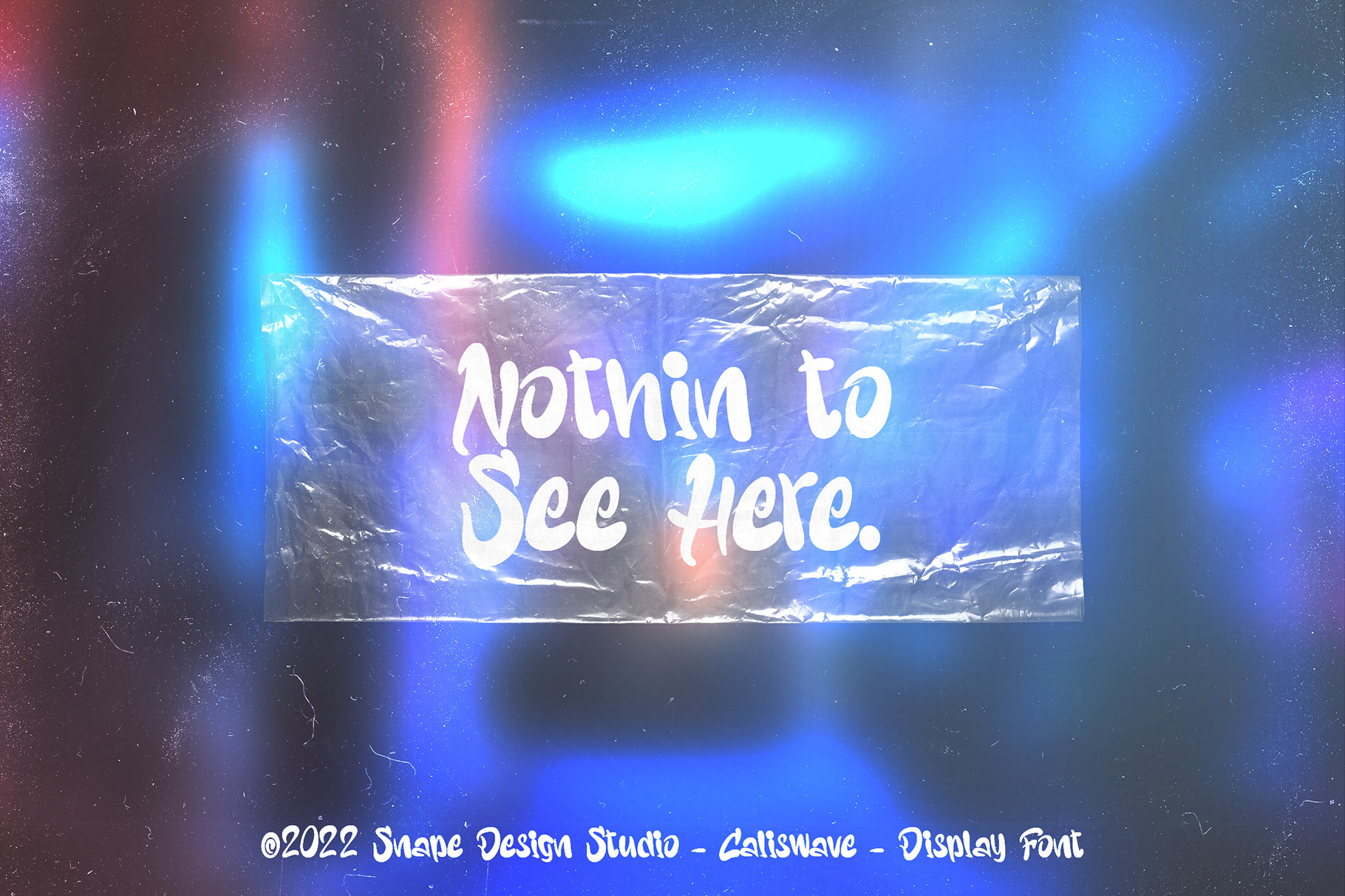
Caliswave is a display font inspired by unique futuristic liquid design, suitable for your design related to it. Also suitable for movie, documenter, film, logo, poster, game, book cover, headlines, title and many more projects. Add this font to your creative ideas and notice how it will make them stand out!
Caliswave - Graffiti Font design by Ario Sabrang Damar publish under Snape Design Studio